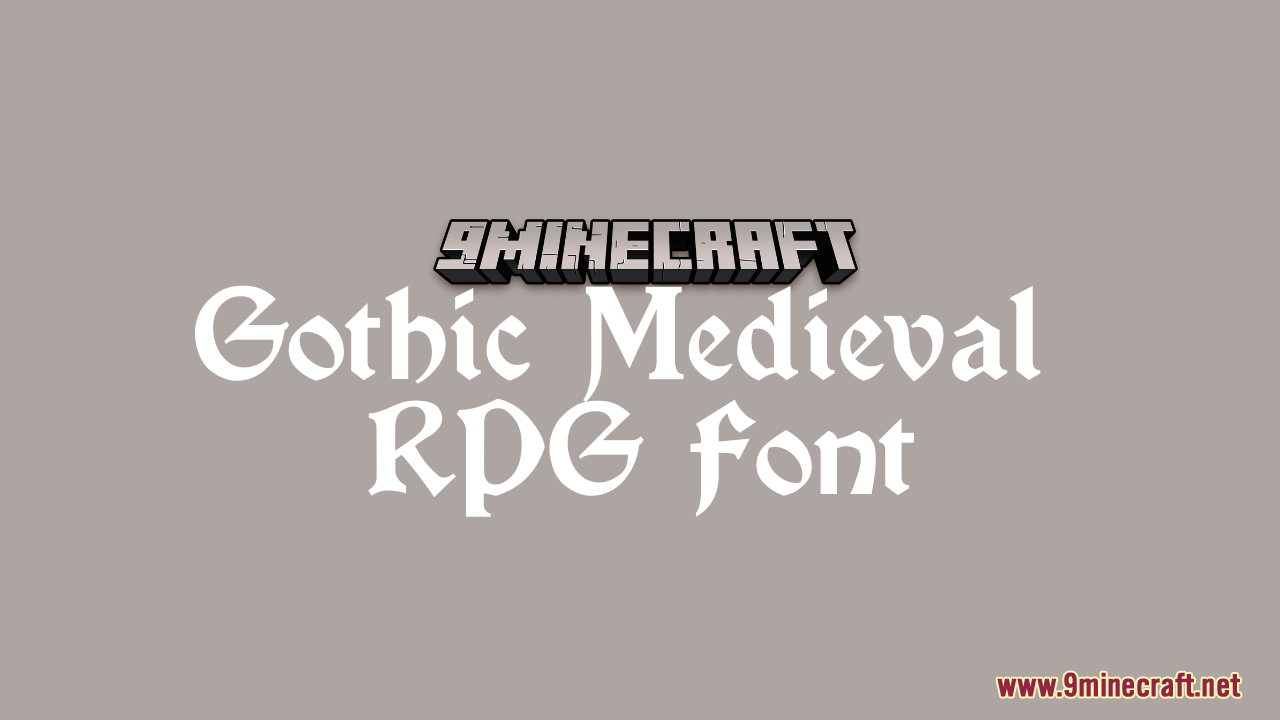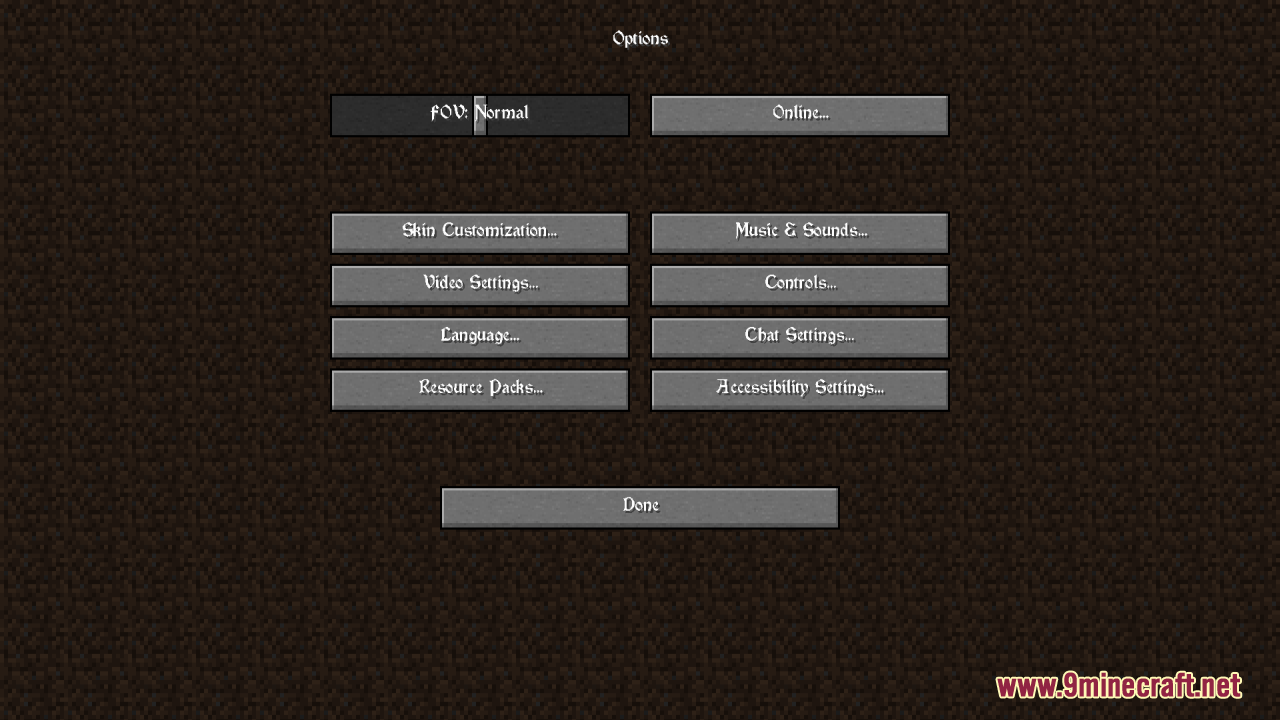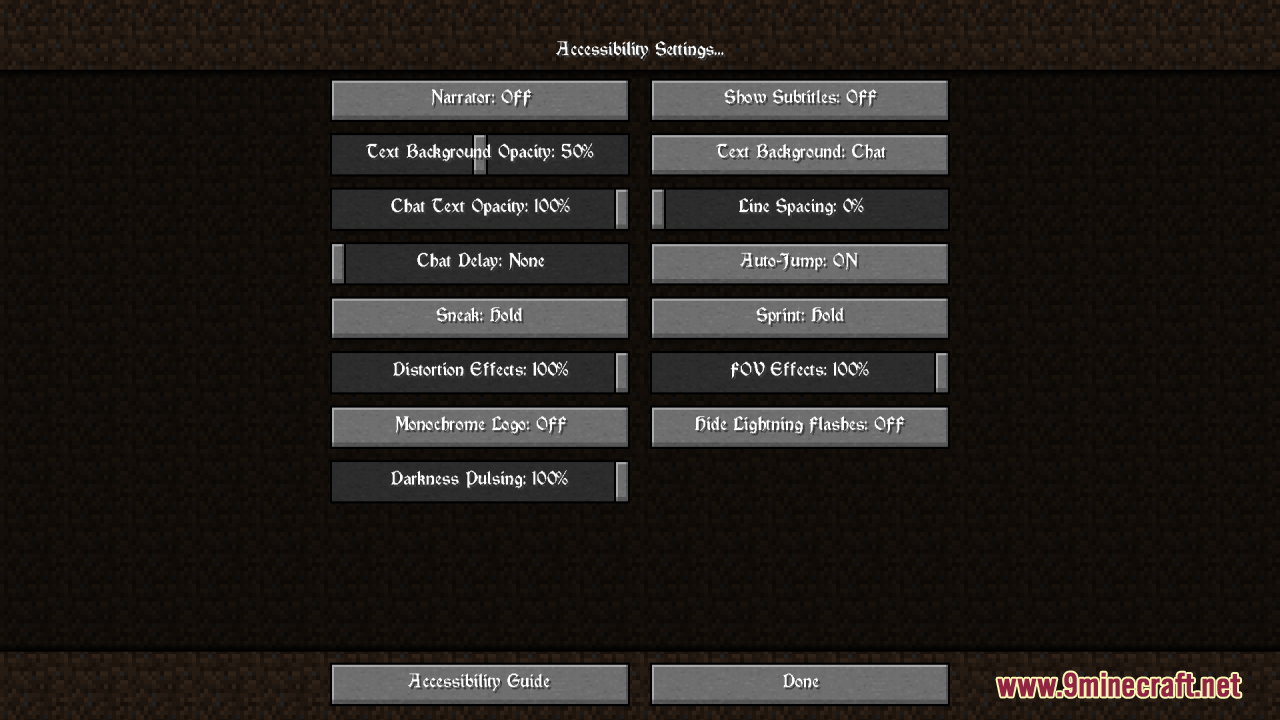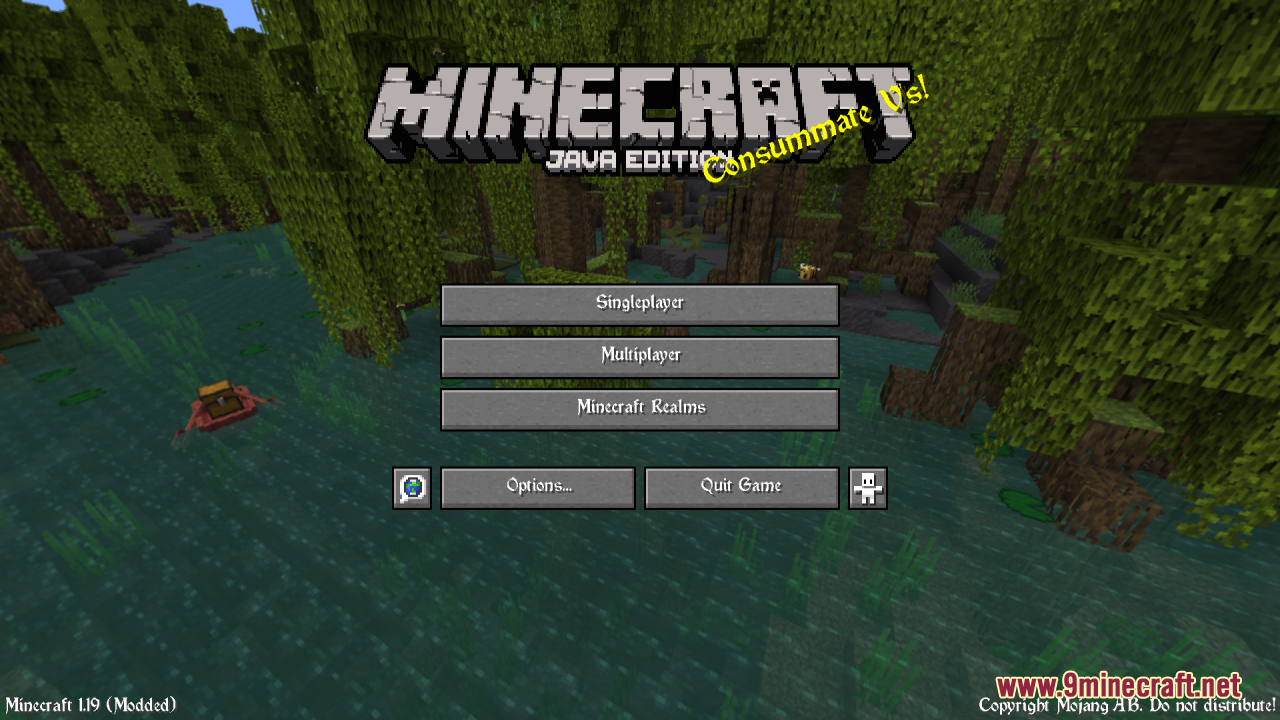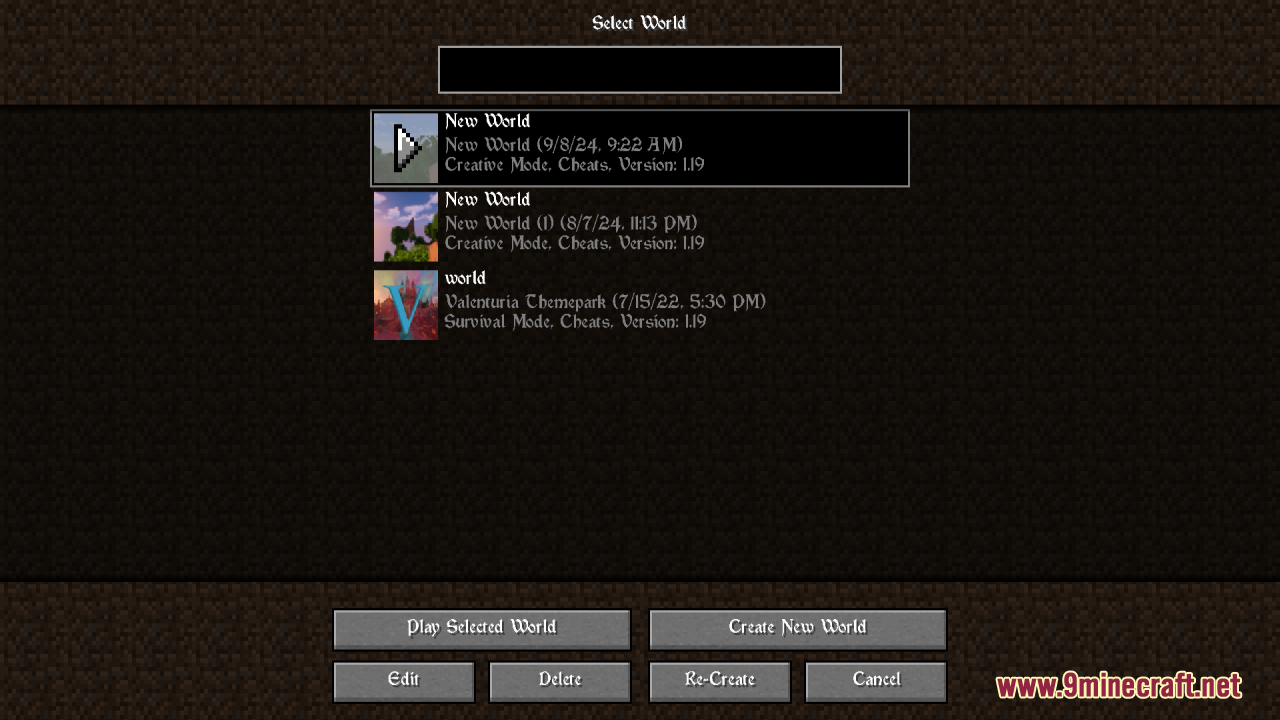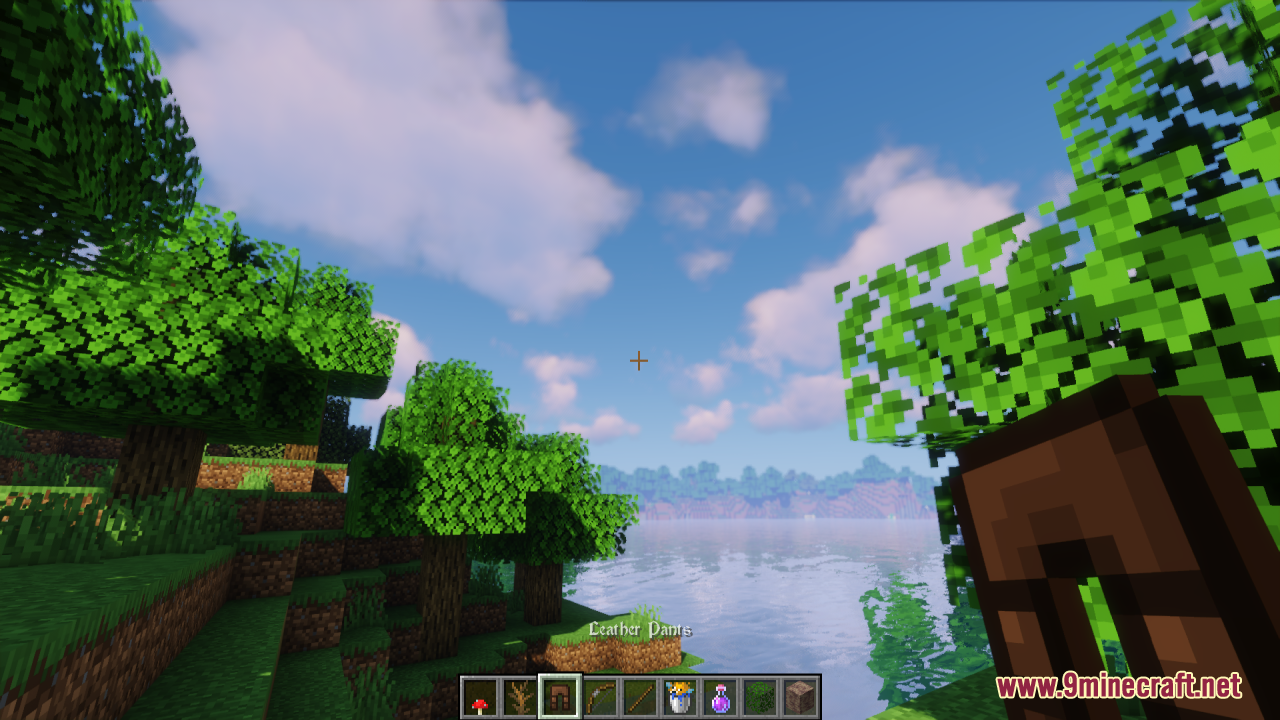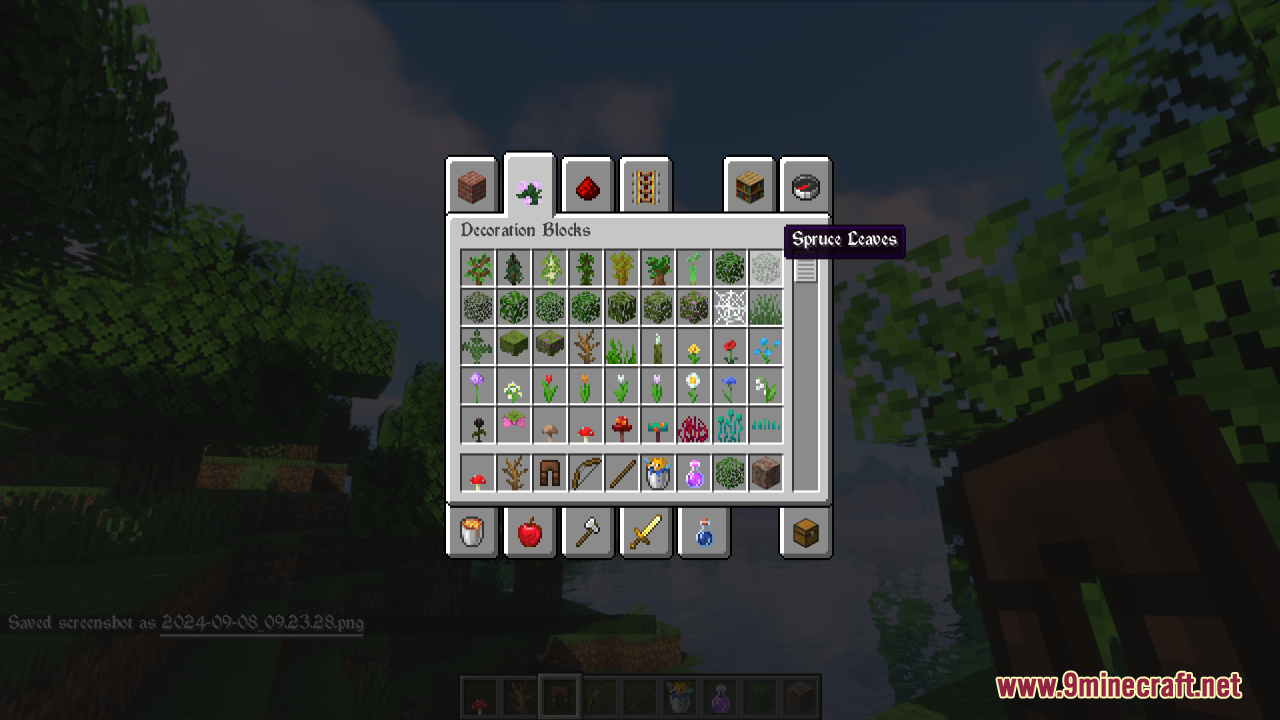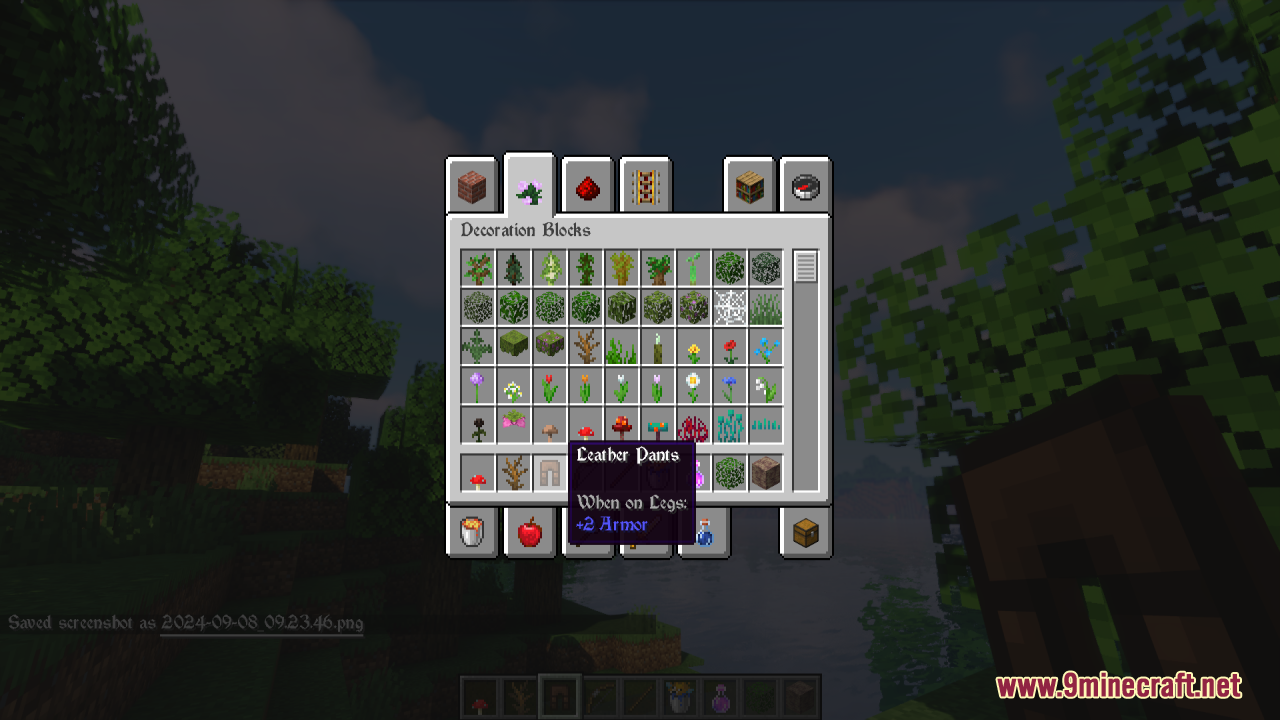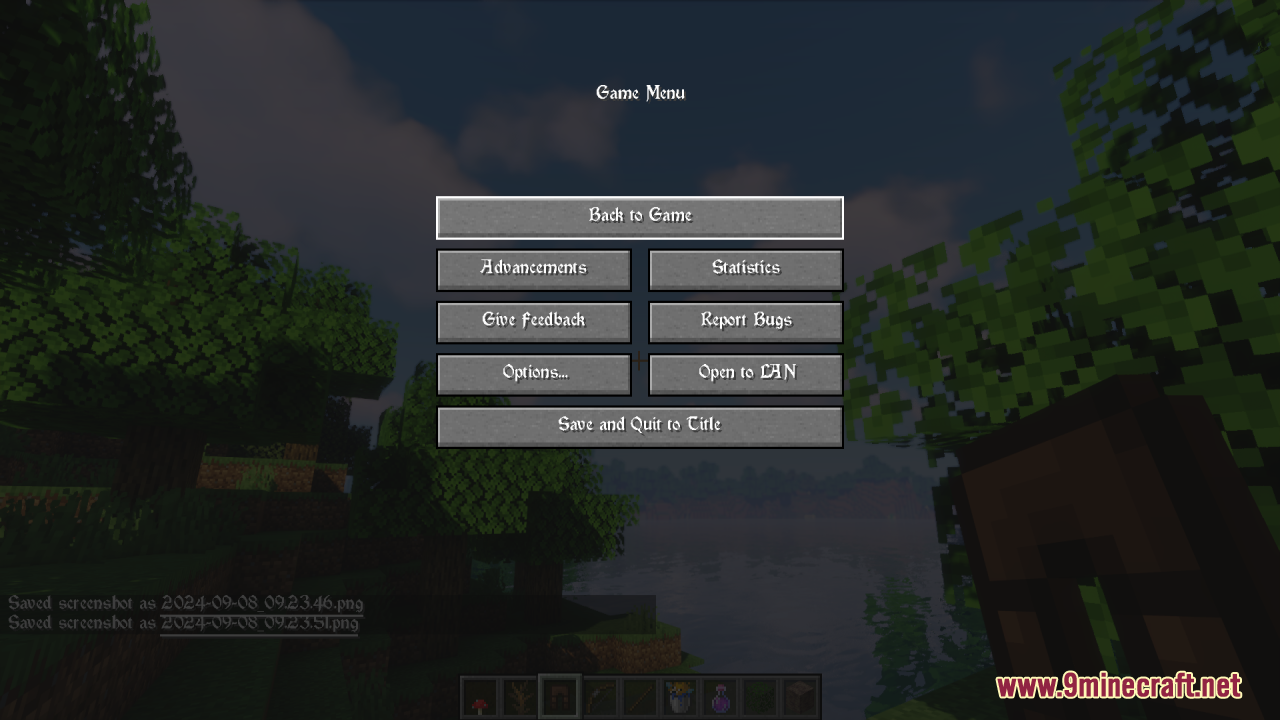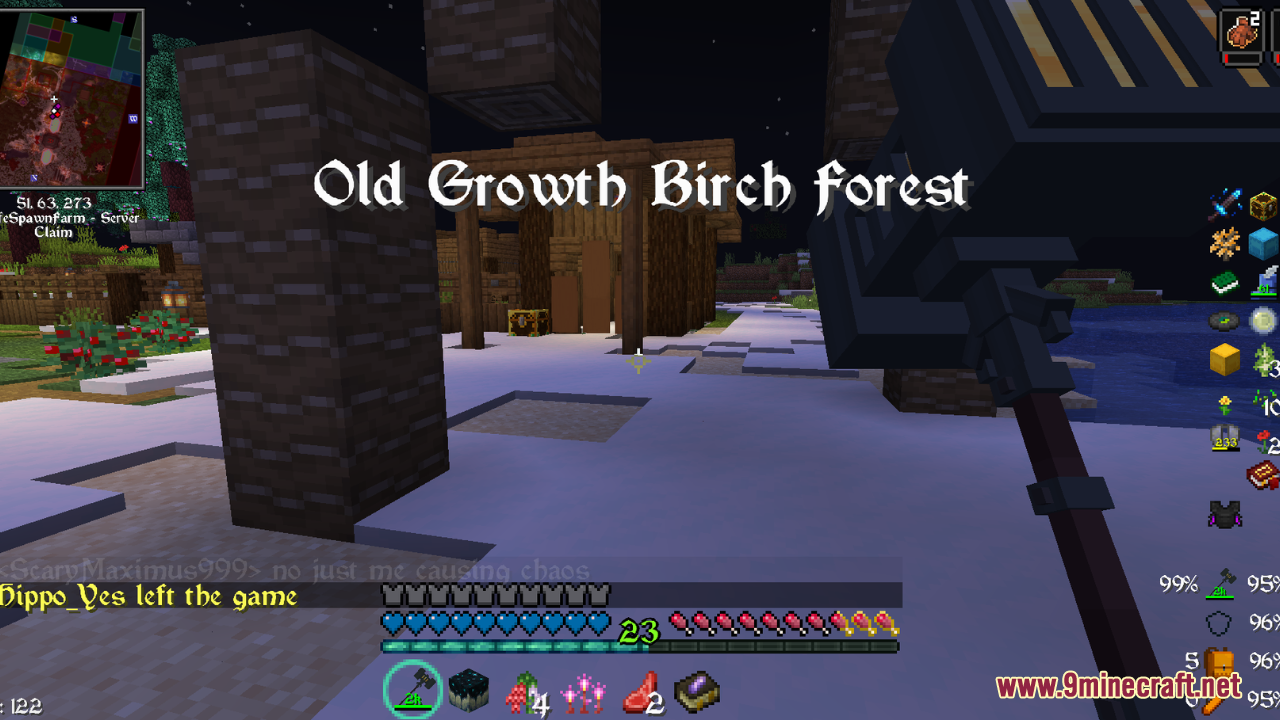
Gothic Medieval RPG Font Resource Pack (26.2, 1.20.1) – Texture Pack
Gothic Medieval RPG Font Resource Pack simply enhances the vanilla Minecraft experience by introducing a gothic and medieval-themed font, perfect for players who want to add a touch of dark fantasy to their gameplay. The font is designed to be easy to read while giving your in-game text a distinctive, atmospheric feel. Whether you’re exploring castles, embarking on quests, or role-playing in a medieval setting, this resource pack provides a more immersive experience by aligning the game’s text with a traditional RPG aesthetic.